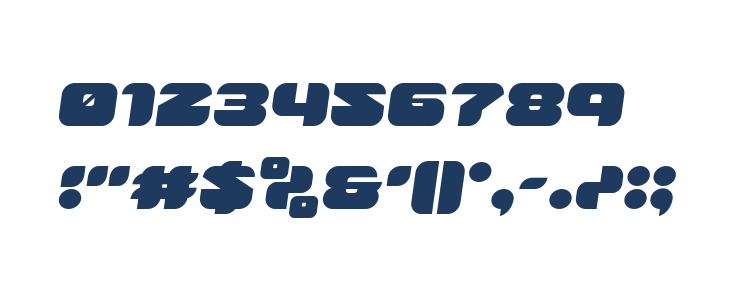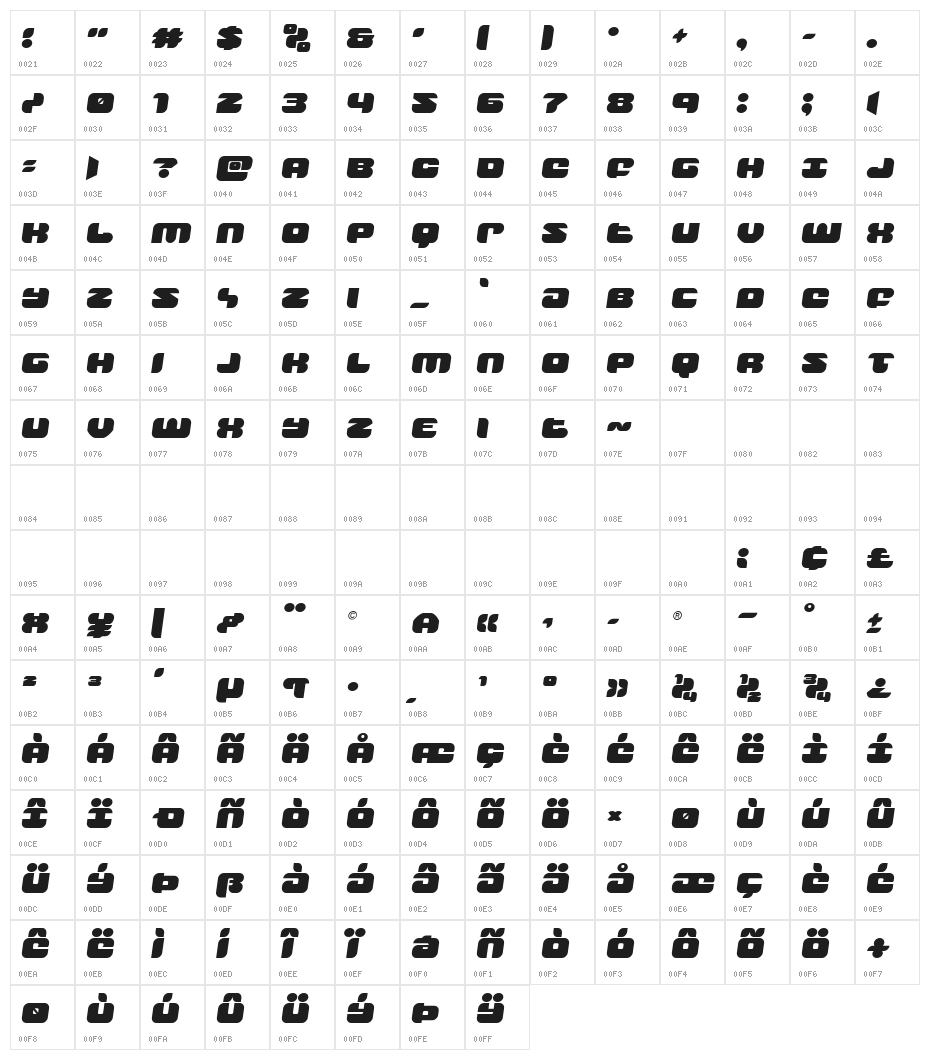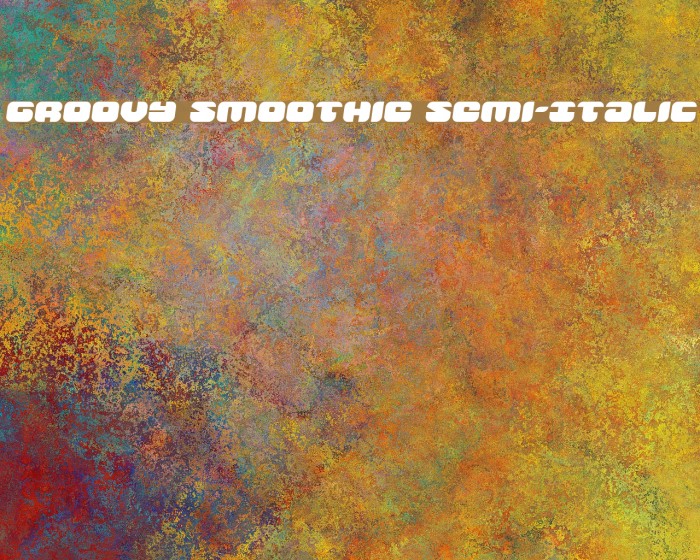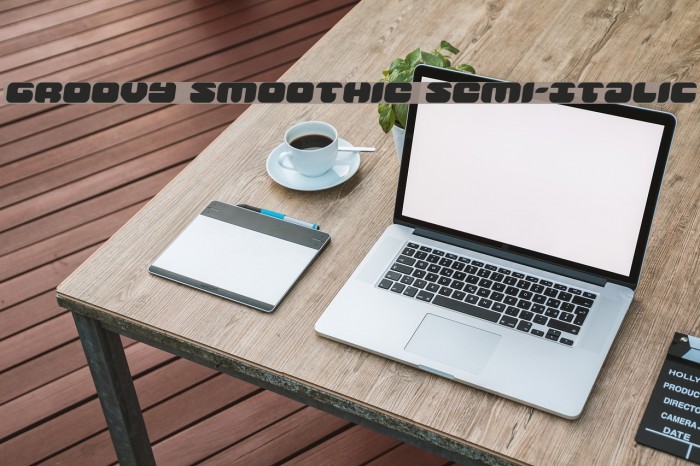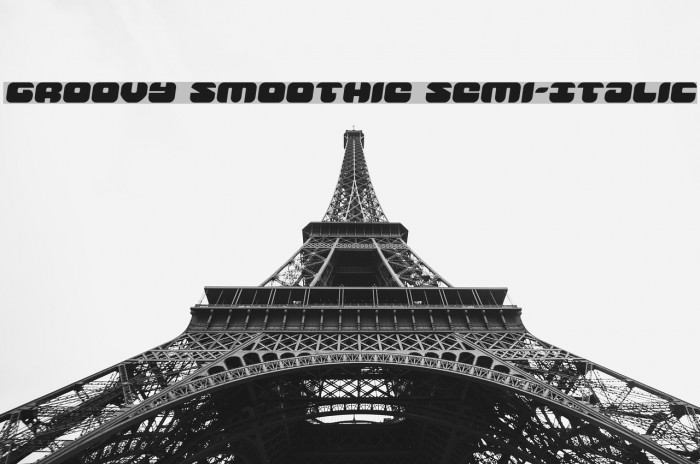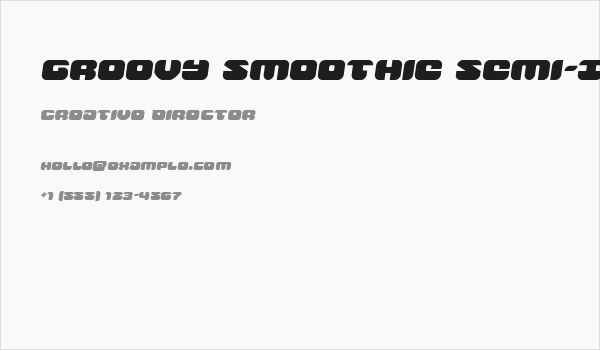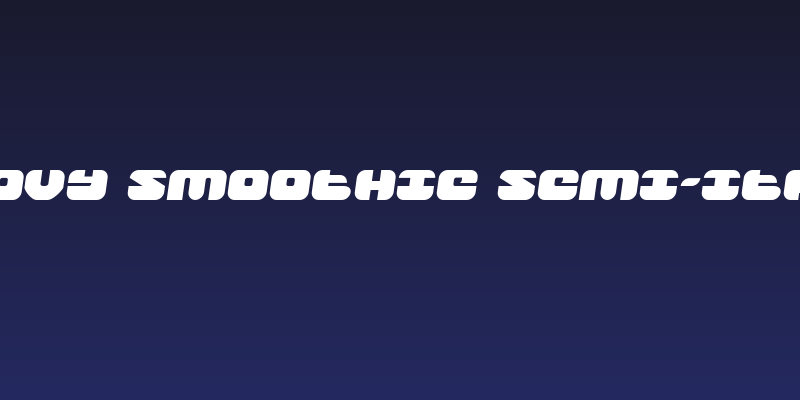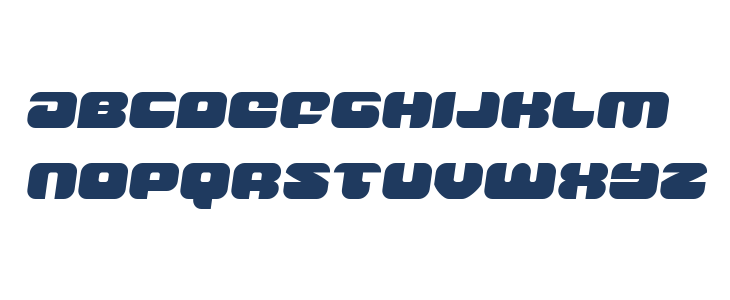
Groovy Smoothie Semi-Italic Font
Groovy Smoothie Semi-Italic Description
This font features a bold, rounded style with a smooth, flowing appearance. The characters are semi-italicized, giving them a dynamic and energetic feel. The design is playful and modern, with a unique blend of geometric shapes and soft curves. The letters are evenly spaced, creating a balanced and harmonious look. This font is ideal for projects that require a touch of creativity and fun, while still maintaining readability and clarity.